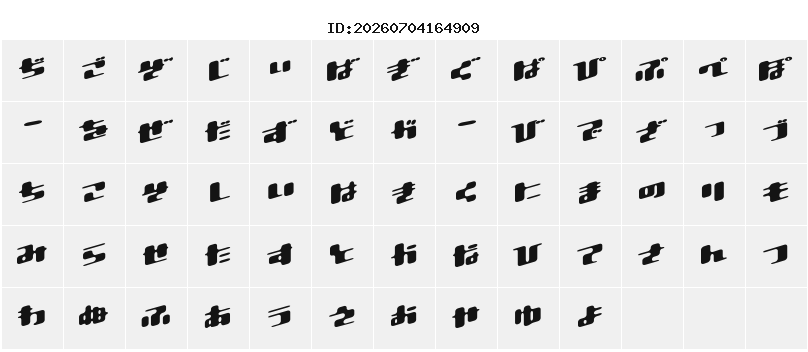
Dtron Preview
• Font Name: Dtron
• Full Font Name: Dtron Regular
About Dtron.ttf
Dtron.ttf is a modern, elegant sans-serif font designed for ultimate readability and visual harmony. Perfect for branding, headlines, web design, and print materials.